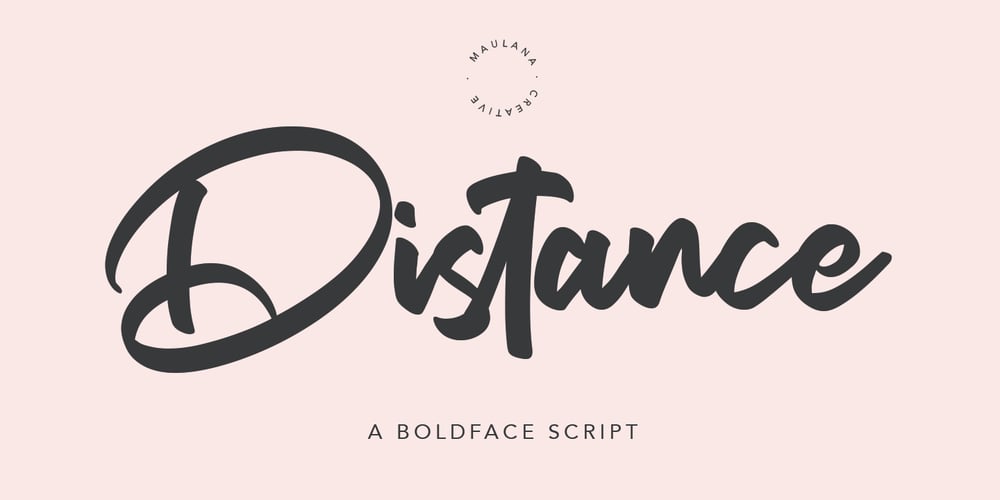
Distance
Distance font
Distance Font Family was designed by Gilang Maulana and published by Maulana Creative. Distance contains 1 styles and family package options. Give your designs an authentic handcrafted feel. “Distance Bold Script Font” is perfectly suited to signature, stationery, logo, typography quotes, magazine or book cover, website header, clothing, branding, packaging design and more.